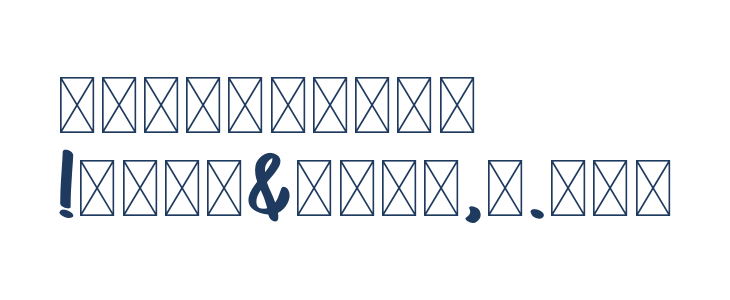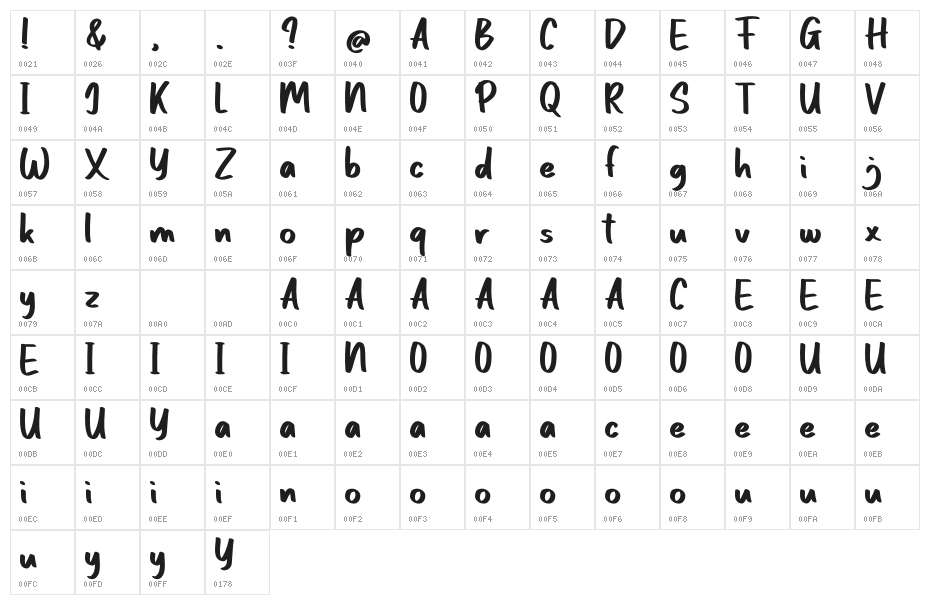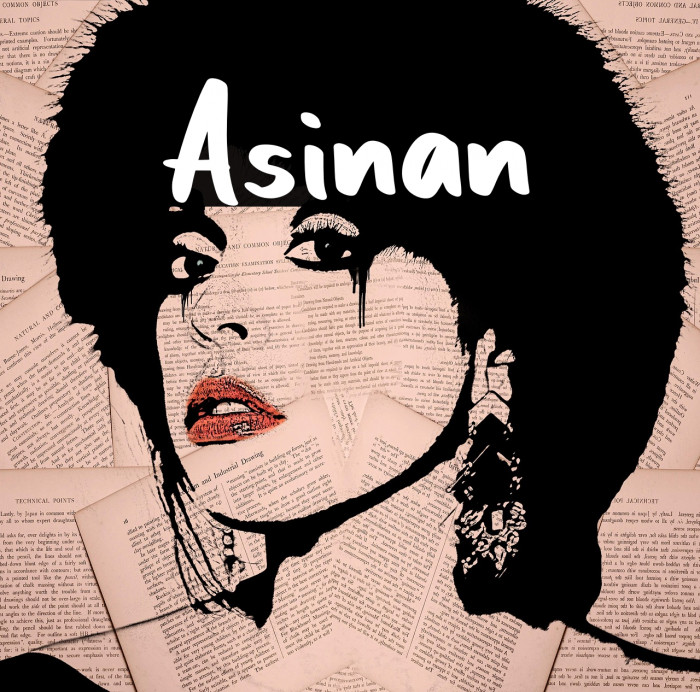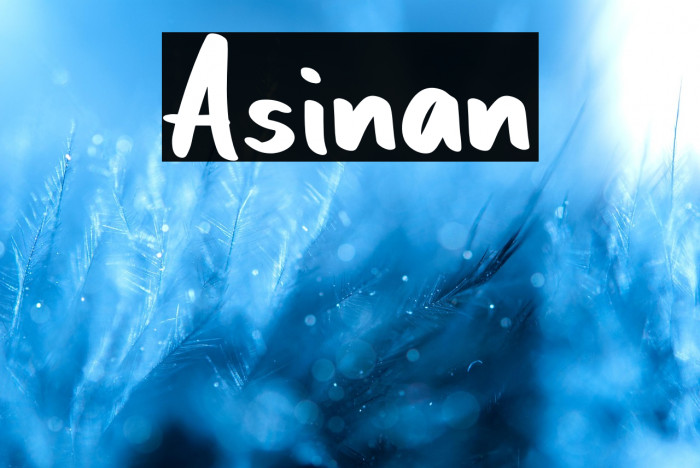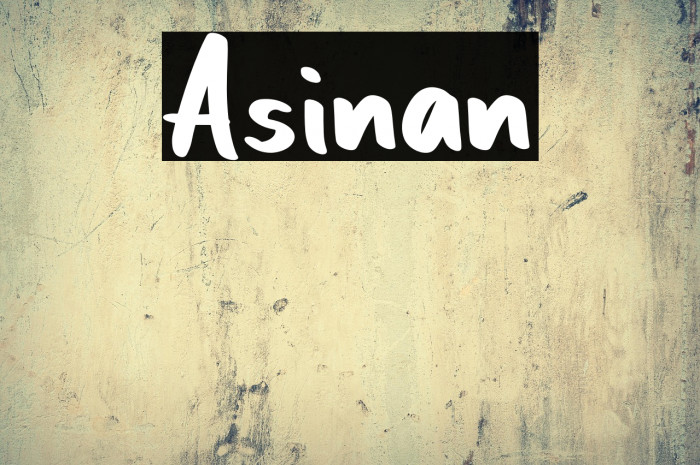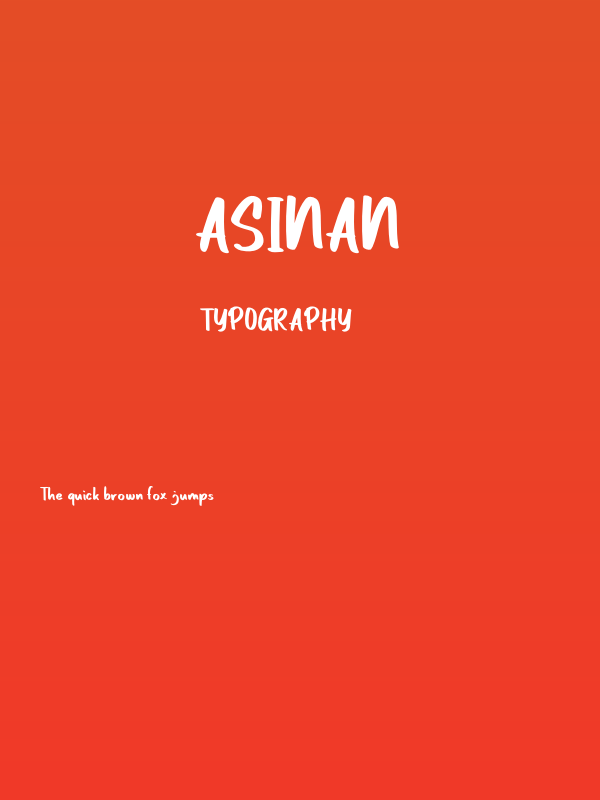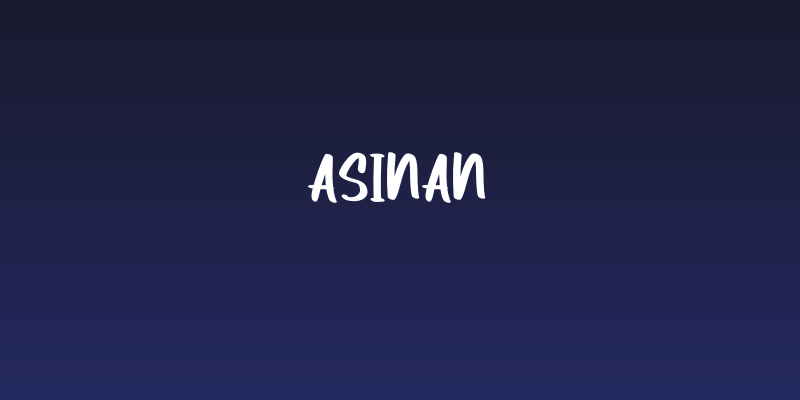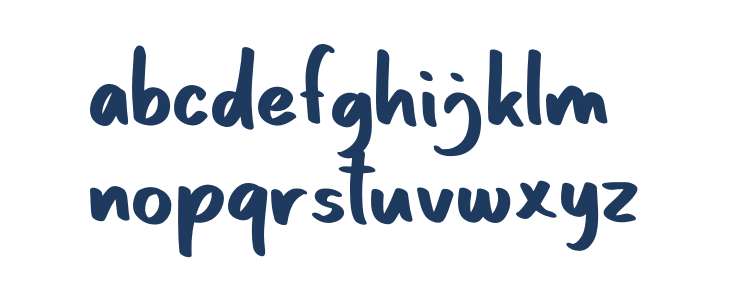
Asinan Font
Asinan Description
This font features a playful and energetic handwritten style, characterized by its bold and dynamic strokes. The uppercase letters are slightly taller and more pronounced, while the lowercase letters maintain a consistent flow with rounded edges. The overall appearance is casual yet expressive, making it suitable for projects that require a personal touch. The font's unique style is enhanced by its irregular baseline, adding to its charm and individuality. The characters are well-spaced, ensuring readability while maintaining a lively aesthetic.
| Proposed Projects | Ideal for greeting cards, invitations, posters, and branding projects that seek a personal and lively touch. |